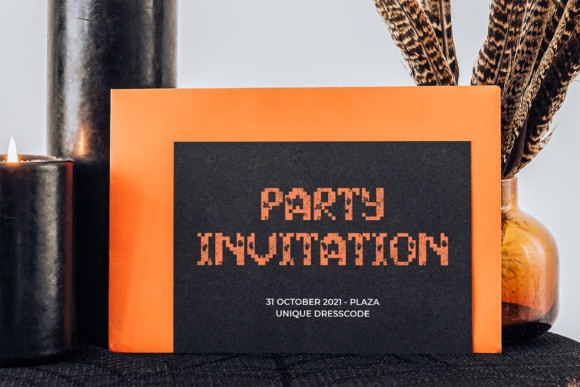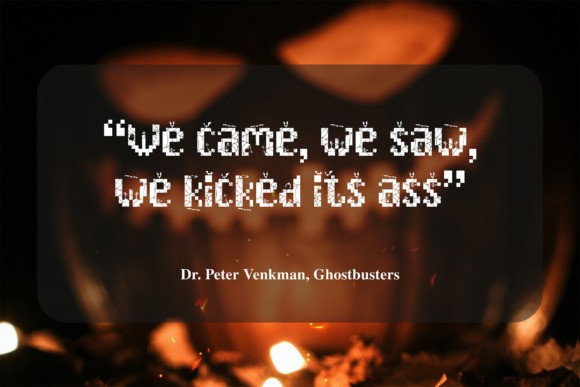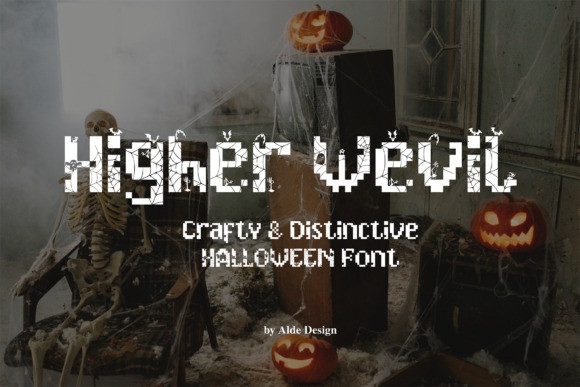
Higher Wevil Display Font
Higher Wevil Halloween is a crafty and distinctive display font. With a combination of pixel-art and scary horror themes. Masterfully designed to become a true favorite, this font has the potential to bring each of your creative ideas to the highest level!